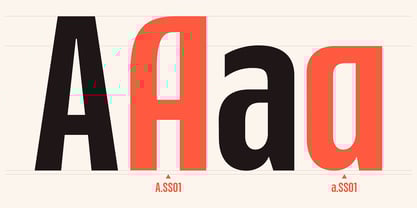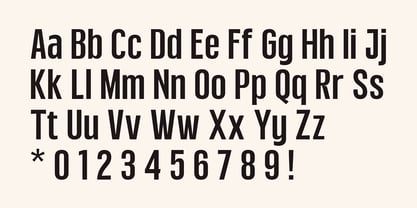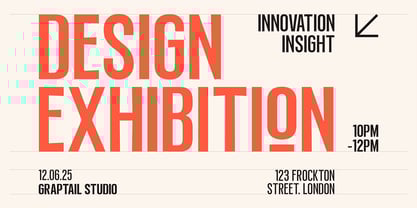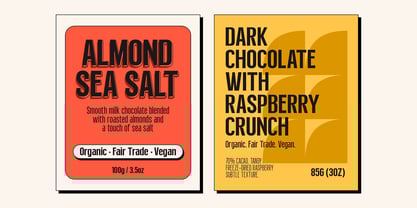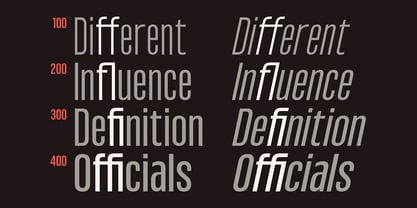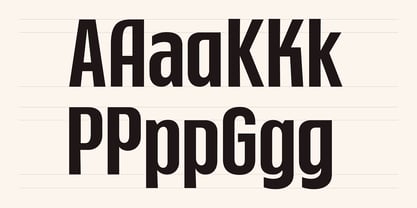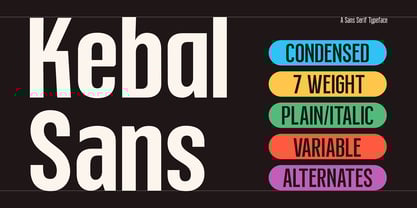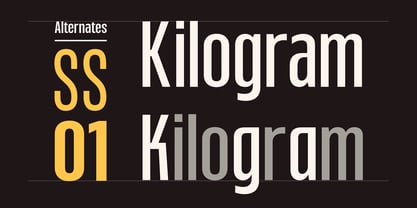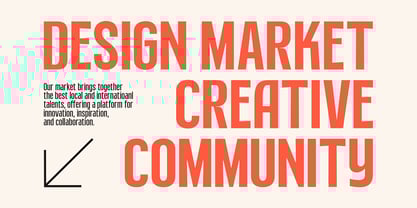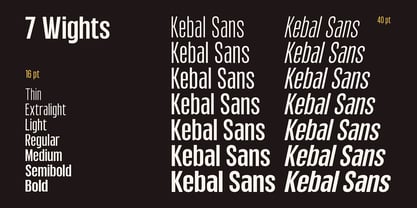
Kebal
by Graptail
The Kebal Font Family was designed by Teuku Deky Firnanda and published by Graptail. Kebal contains 14 styles and family package options. More about this family
Kebal Sans is a condensed sans-serif font designed to be bold, modern, and versatile. As a variable font, it offers 7 weights—from Thin to Bold—allowing for smooth typographic flexibility while maintaining strong visual consistency.
This typeface supports both Plain and Italic styles, and includes alternates for added expression and edge. Each character is crafted with precise geometry and a confident structure, making Kebal Sans an ideal choice for branding, editorials, signage, posters, and bold headlines.
Kebal Sans lets your design speak with clarity and strength—because in a world full of noise, confidence is best shown through detail